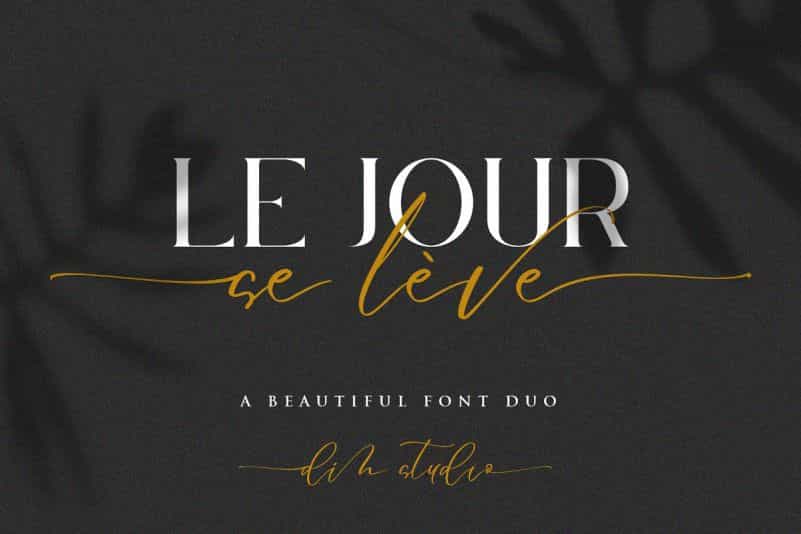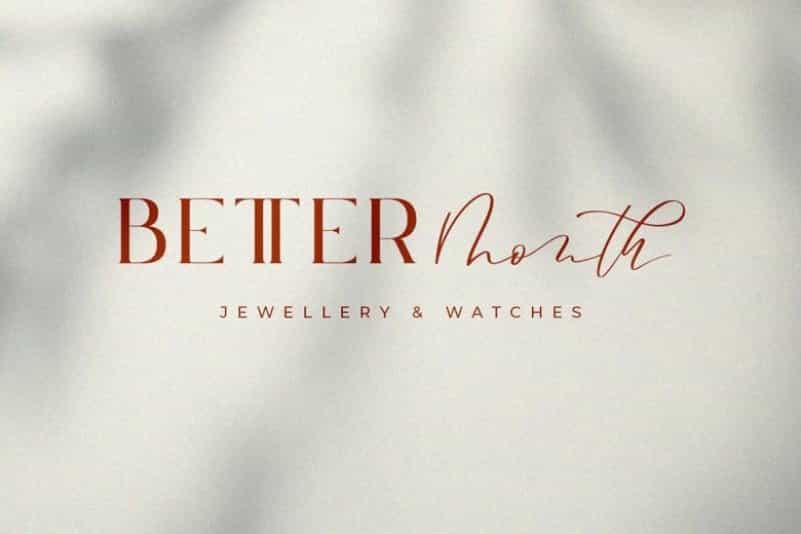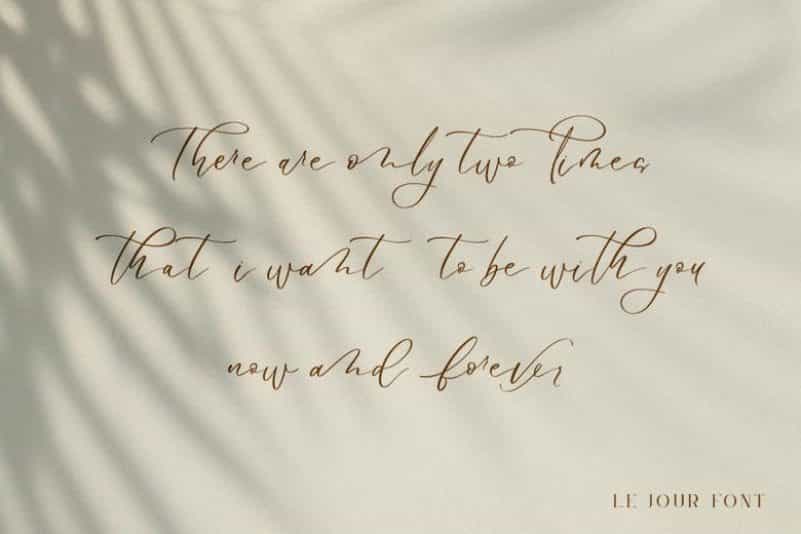
Le Jour is a blend of calligraphy and modern serif fonts. Featuring letters using this combination will enhance the beauty and appeal of your designs.